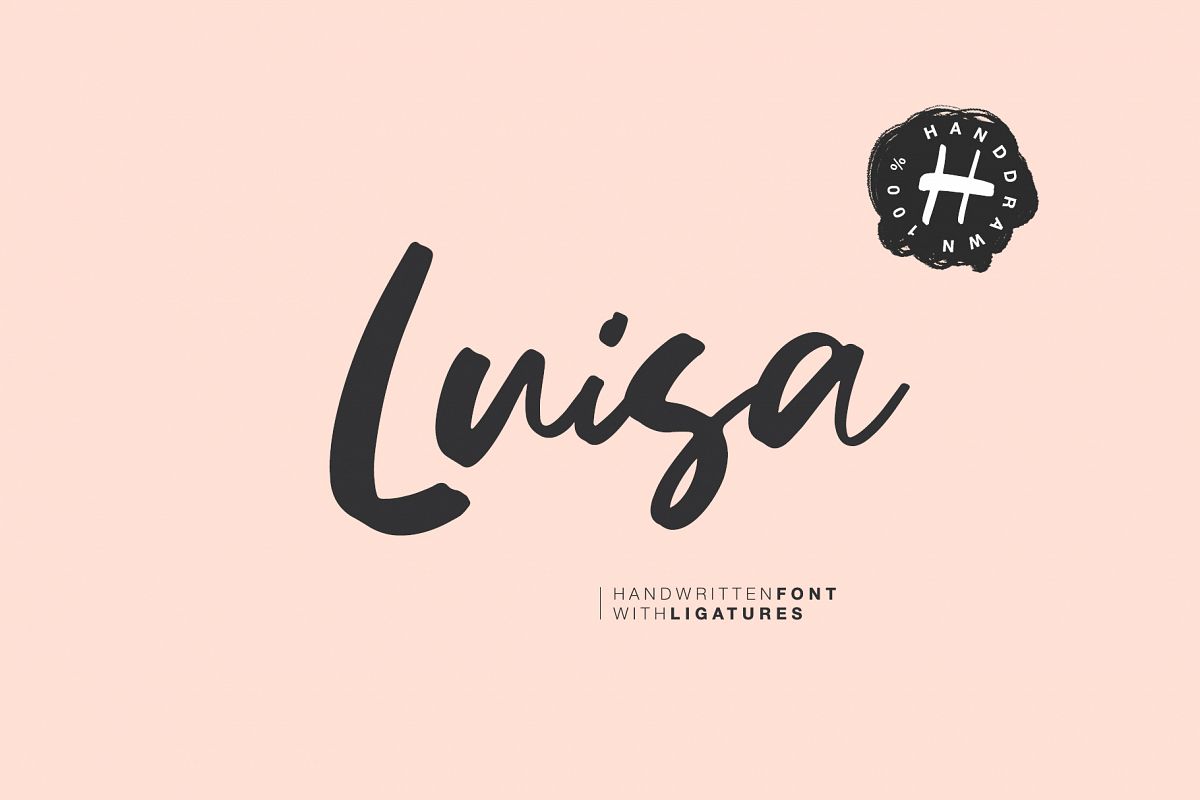
LUISA handwritten font
Luisa-Regular
In my new font, I decided to experiment with the stroke width. So to speak, to reject standards to receive something new. I think it's pretty cool. As a result, I got a very naturalistic font with an unpredictable game of letters :)
Luisa will look beautiful on Christmas and holiday invitations, wedding invites and stationery, logos, and more. I love using it for emphasis words and pairing it with serifsTest it out below to see how it could look for your next project!